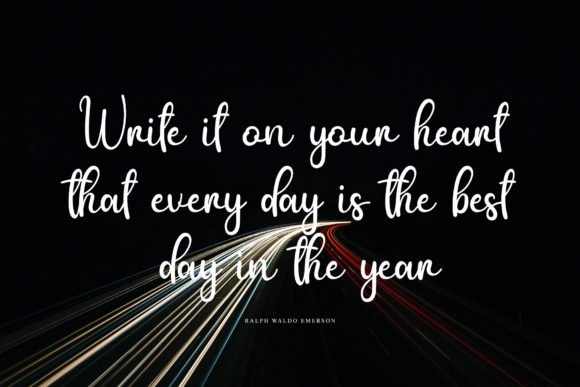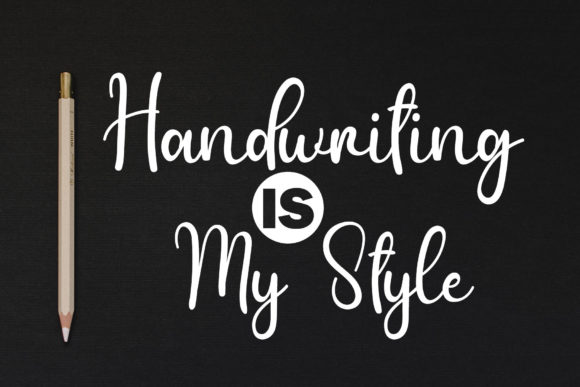
About Pastel Story Font
Pastel Story is a cute and delicate, lettered handwritten font that you can use for all chalkboard quotes or teaching material! Its authentic look will add a personal and realistic feel to your designs. This font is PUA encoded which means you can access all of the glyphs and swashes with ease!